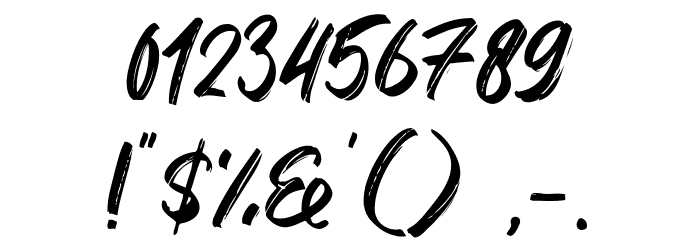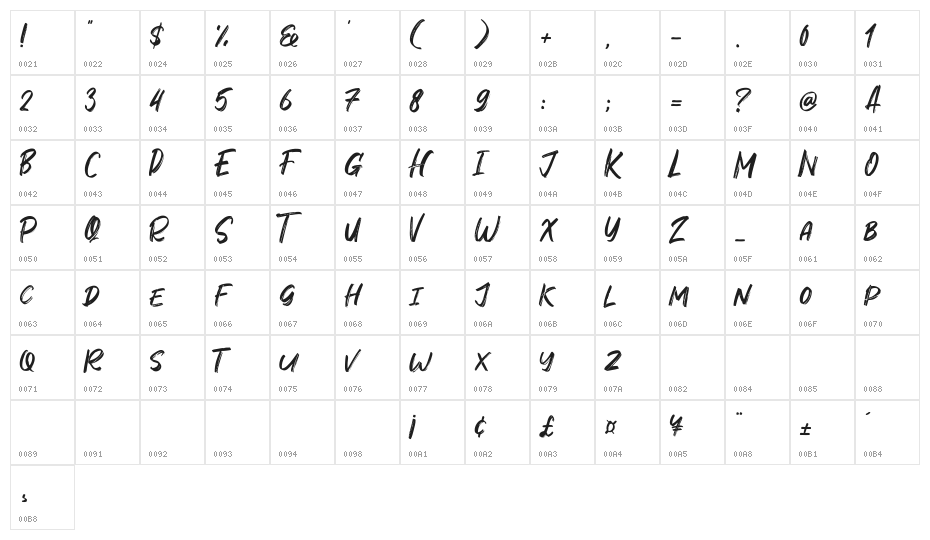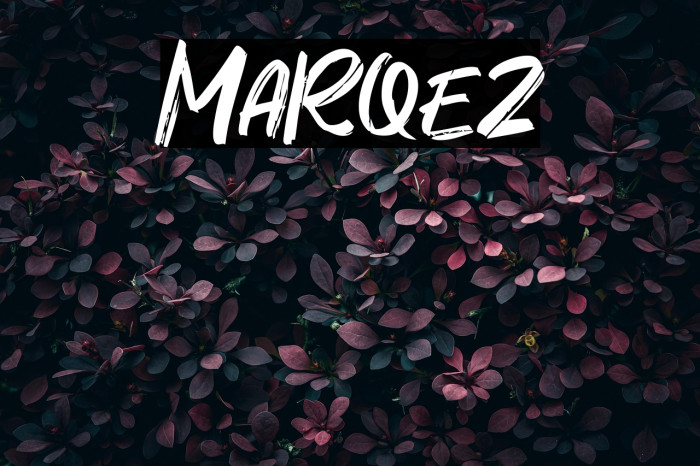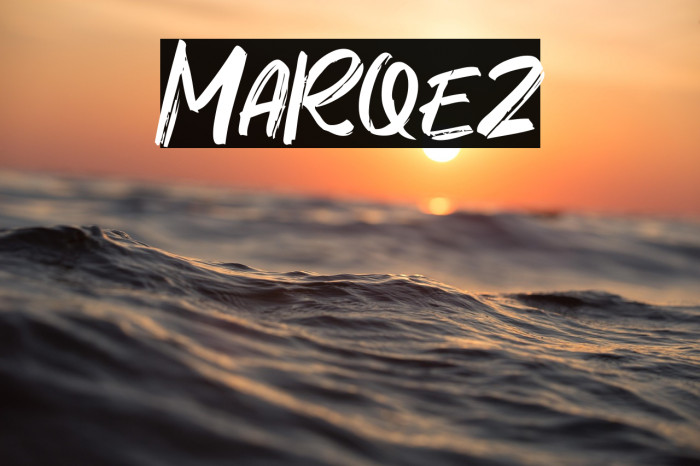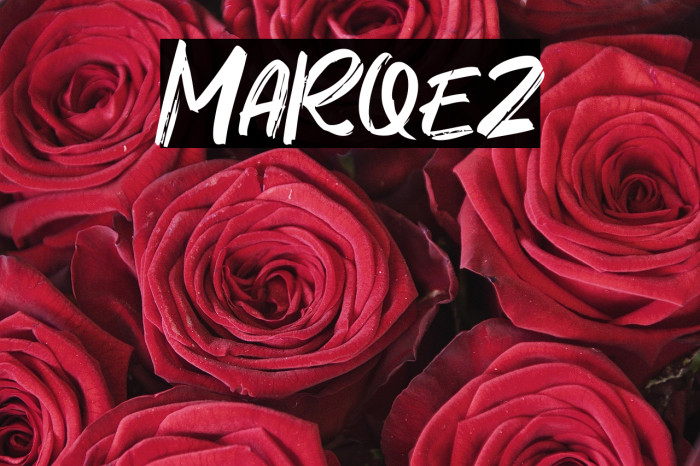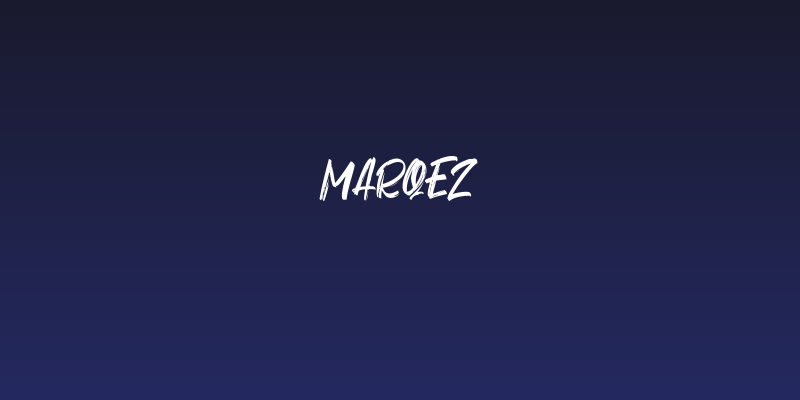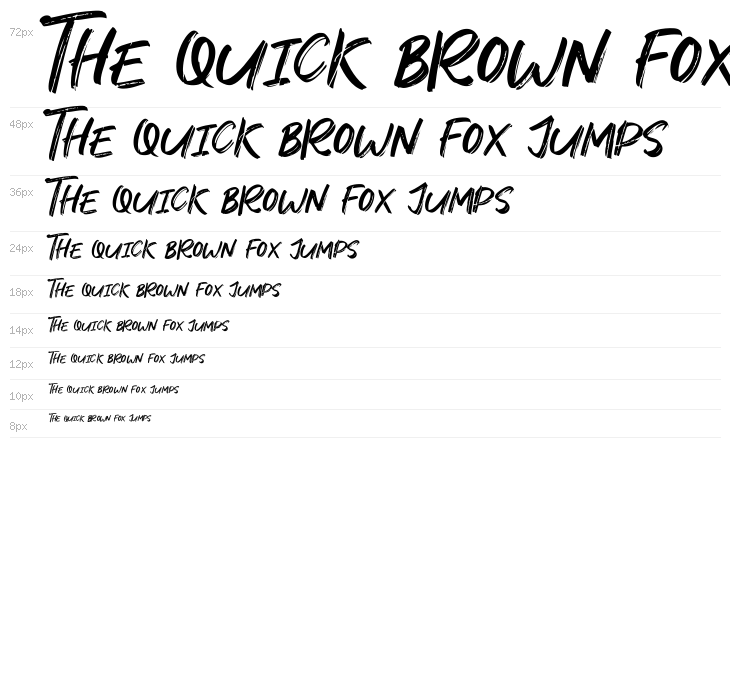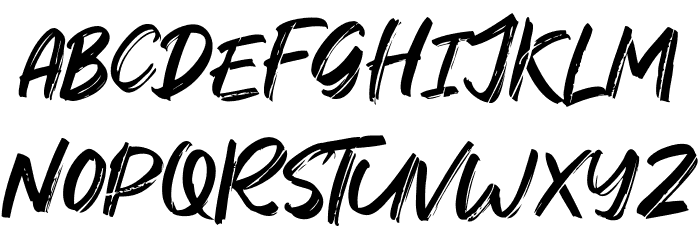
Marqez Font
Marqez Description
This font exudes a bold and energetic style, characterized by its brush-like strokes that give it a dynamic and expressive appearance. The letters are crafted with a sense of movement and flair, making each character appear unique and full of personality. The uppercase and lowercase letters maintain a consistent style, with slightly irregular edges that enhance the hand-drawn feel. Numbers and special characters follow the same artistic approach, ensuring a cohesive look across all elements. This font is perfect for projects that require a touch of creativity and boldness.